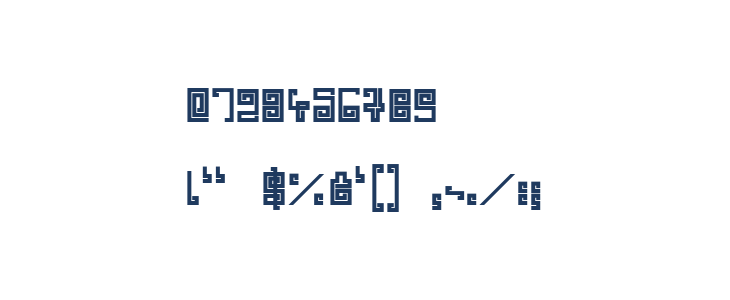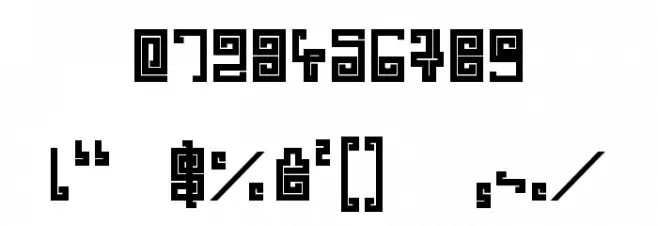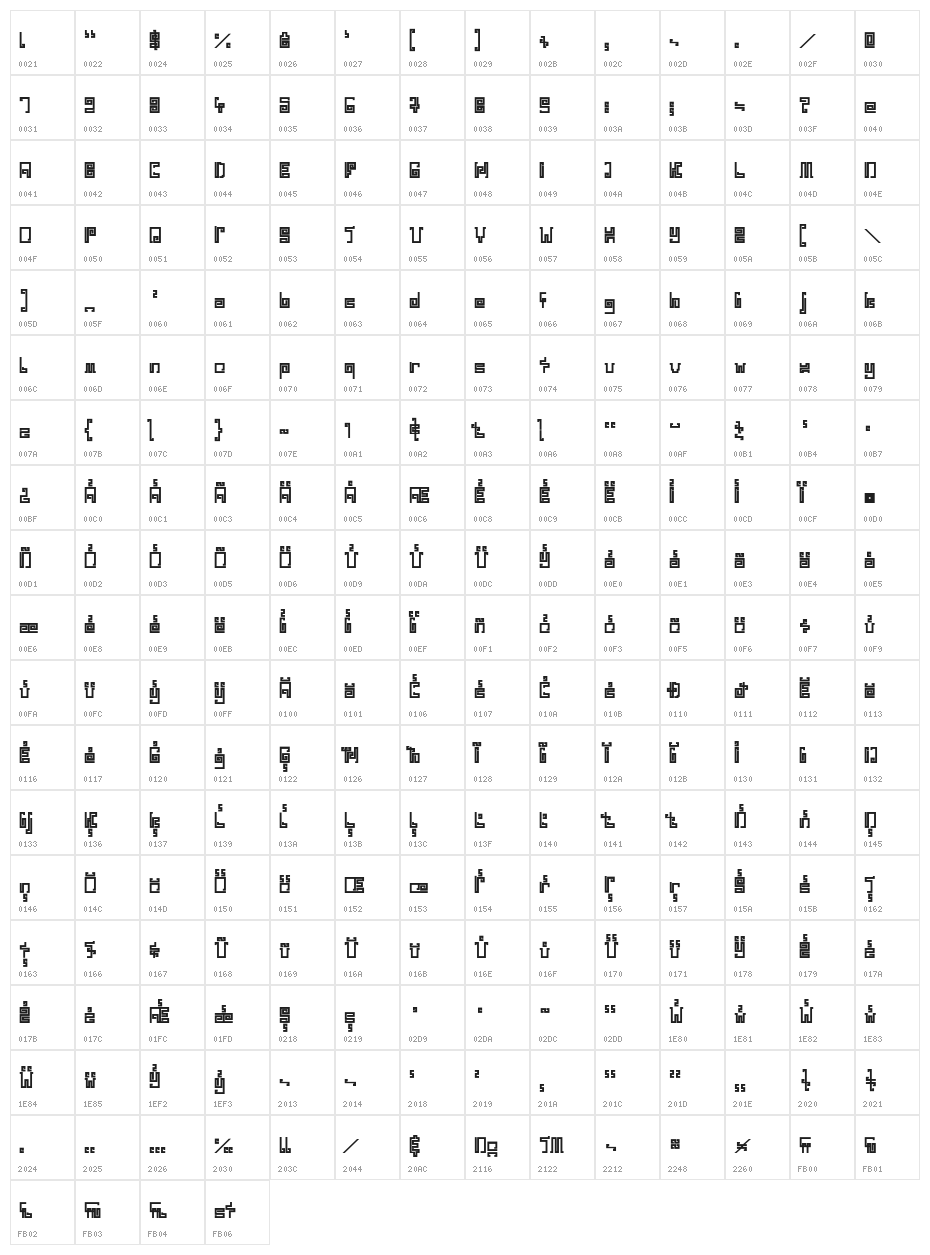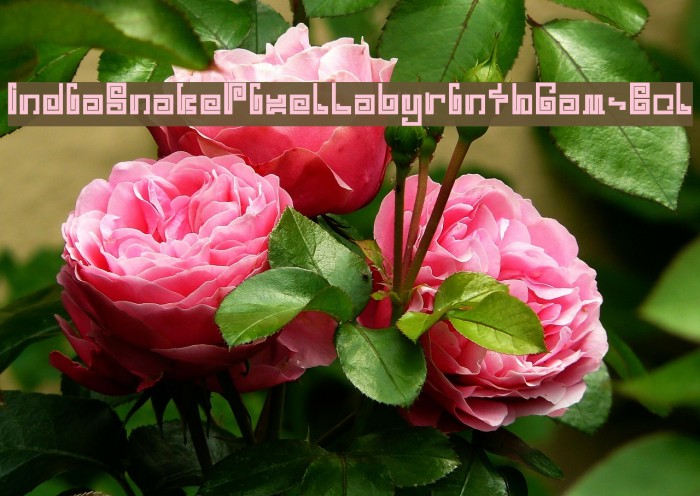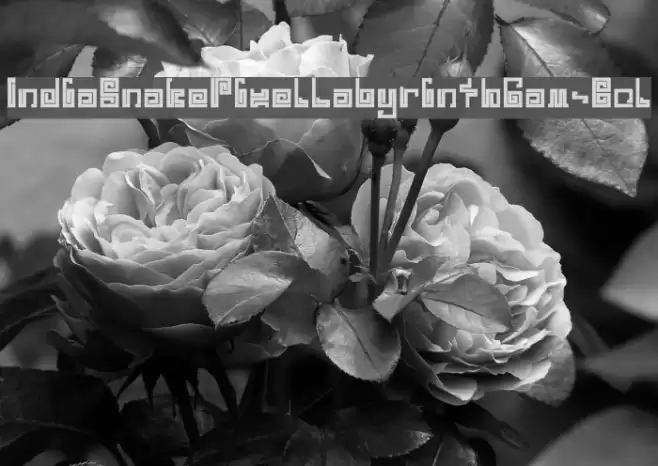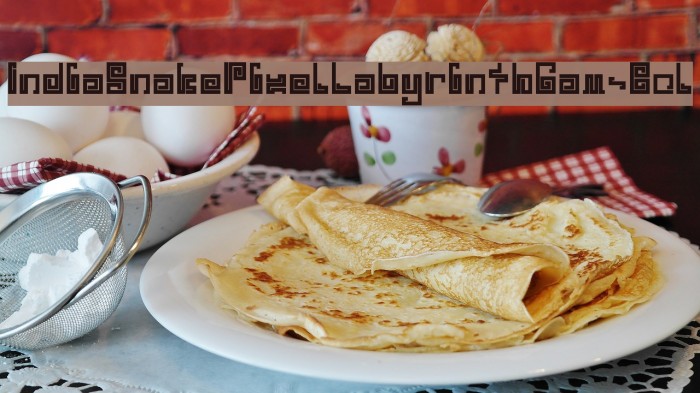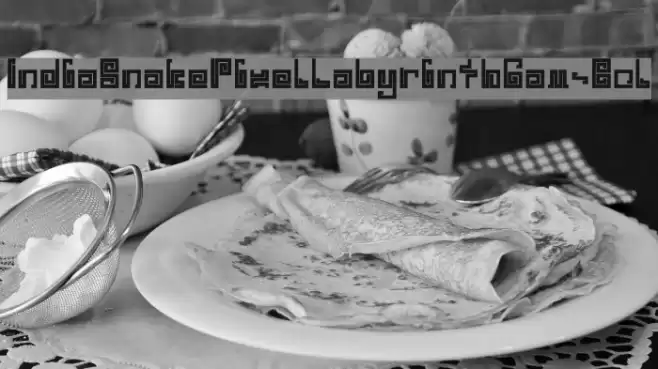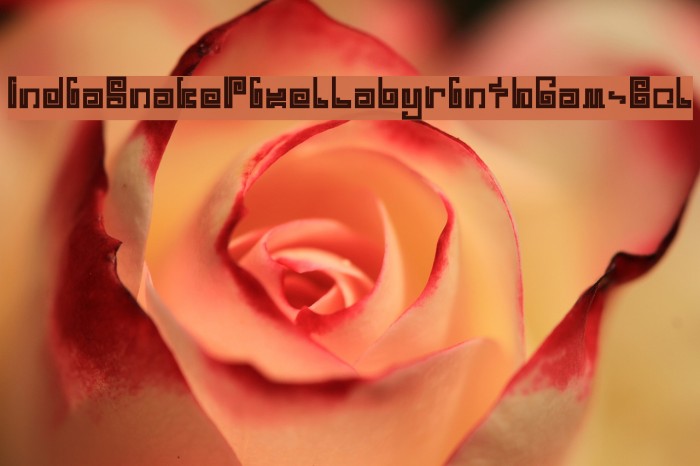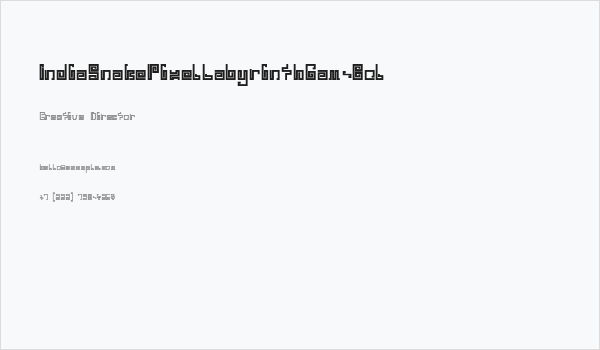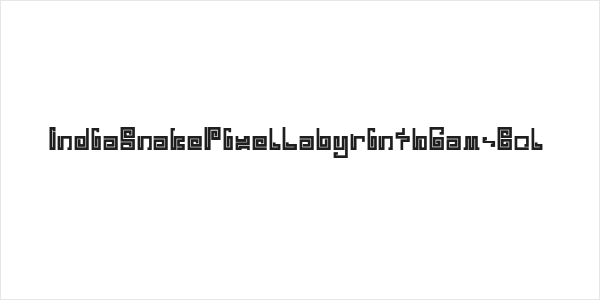
IndiaSnakePixelLabyrinthGam-Bol Font
IndiaSnakePixelLabyrinthGam-Bol Description
This font features a geometric, pixelated design with a labyrinthine structure. Each character is composed of bold, angular lines that create a maze-like appearance, reminiscent of retro video game graphics. The uppercase and lowercase letters maintain a consistent blocky style, with sharp corners and uniform line thickness. Numbers and special characters follow the same design principles, ensuring a cohesive look across all glyphs. The font's unique aesthetic makes it stand out, offering a modern twist on classic pixel art.
A geometric, pixelated font with a maze-like, retro video game style from Uncategorized fonts.
- Proposed Projects: Ideal for video game design, tech-themed posters, digital art projects, and retro-style branding.